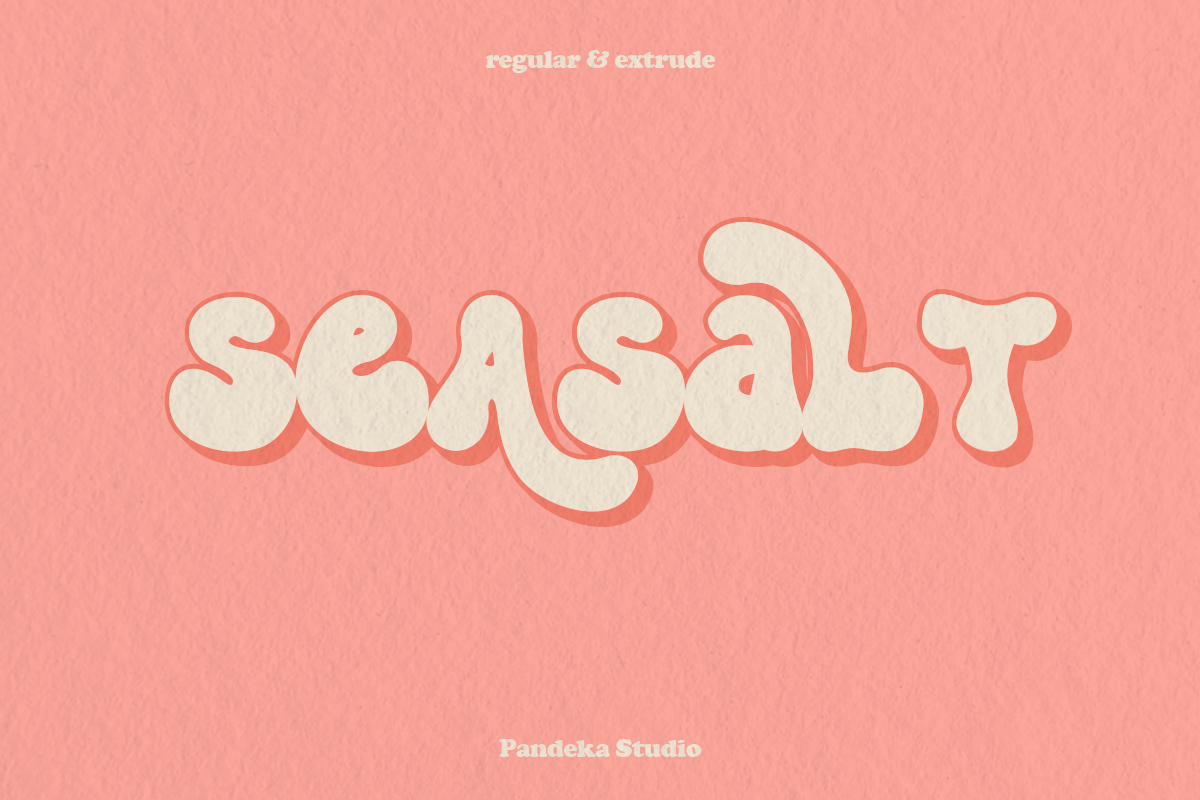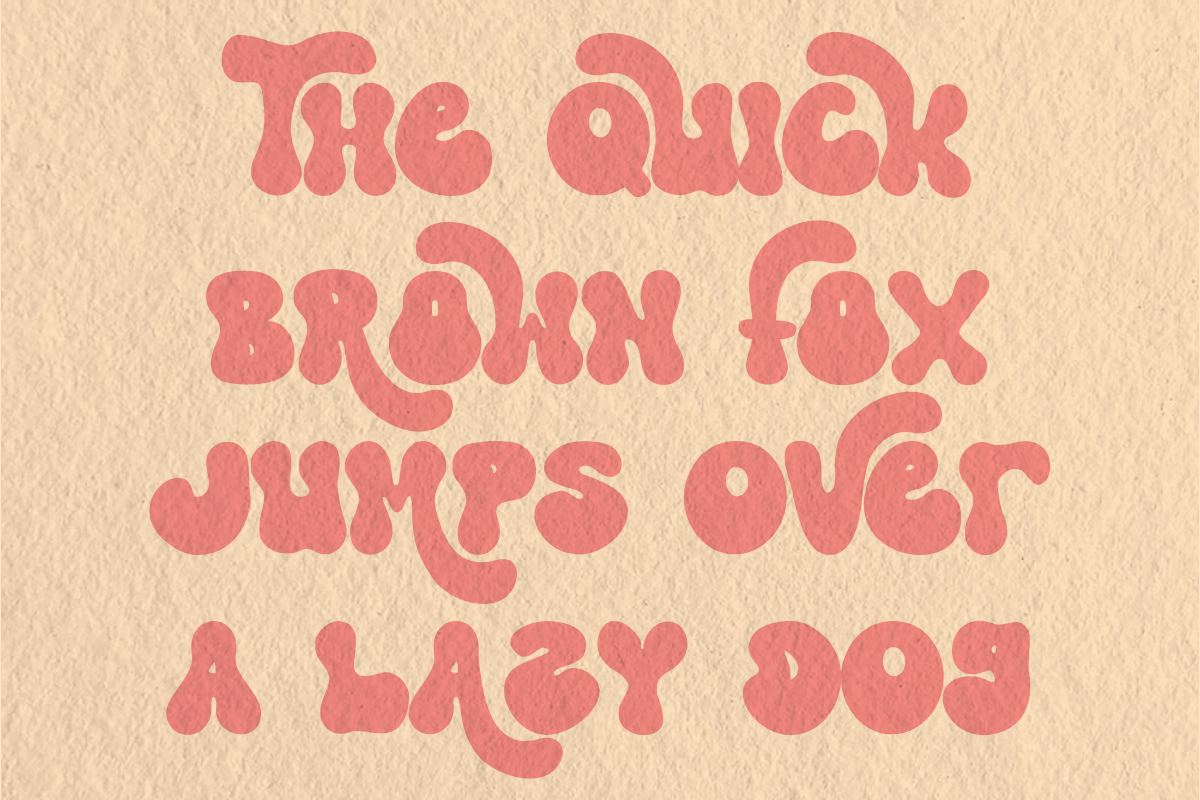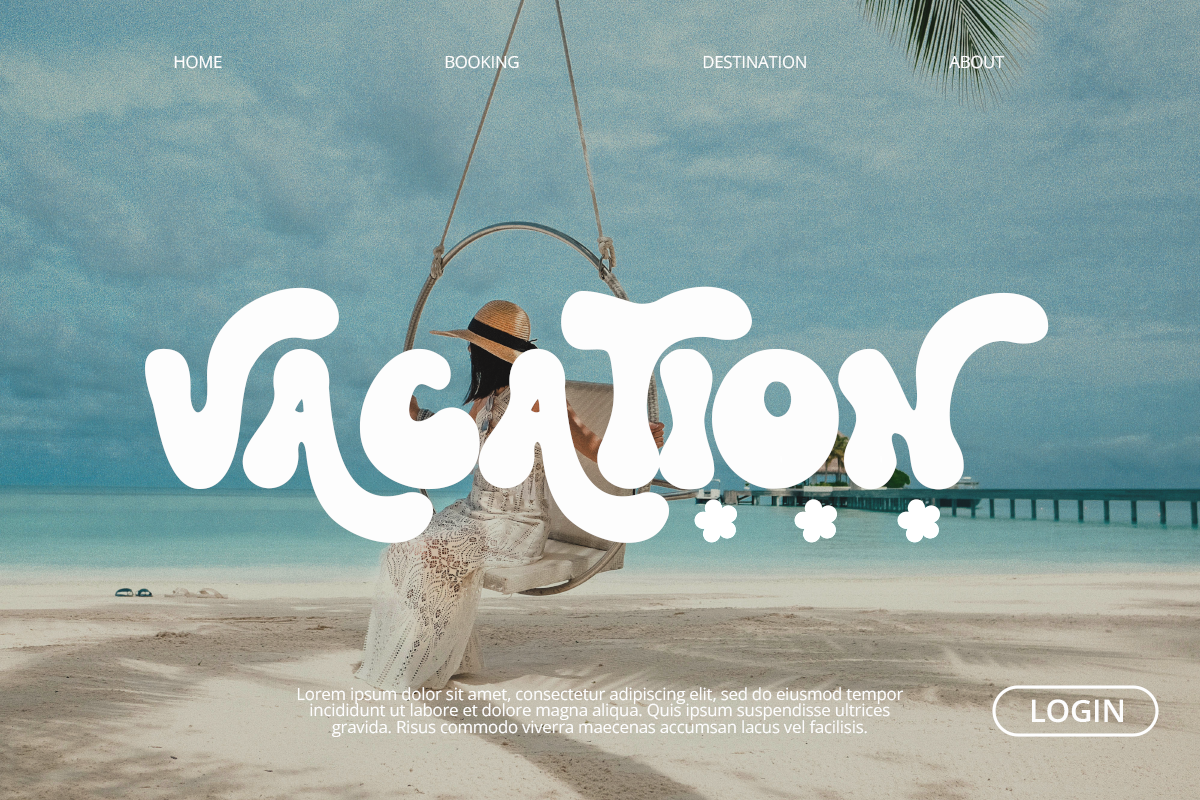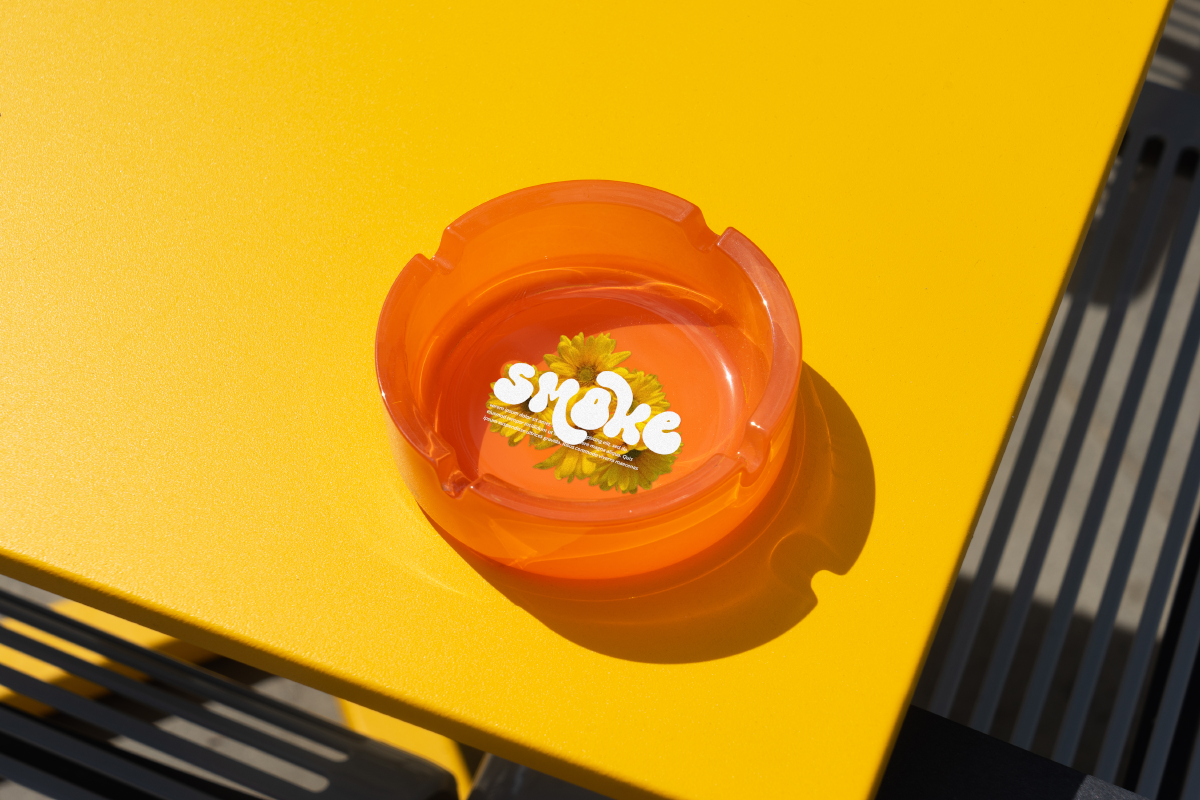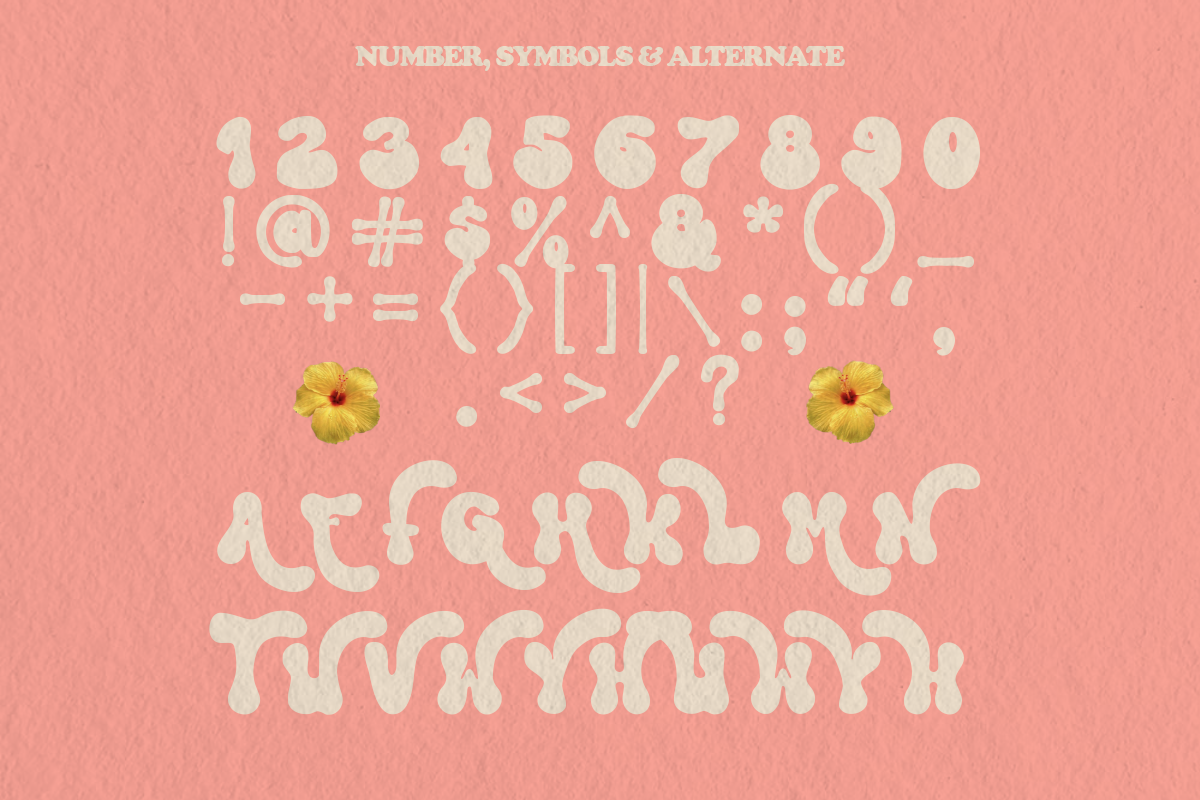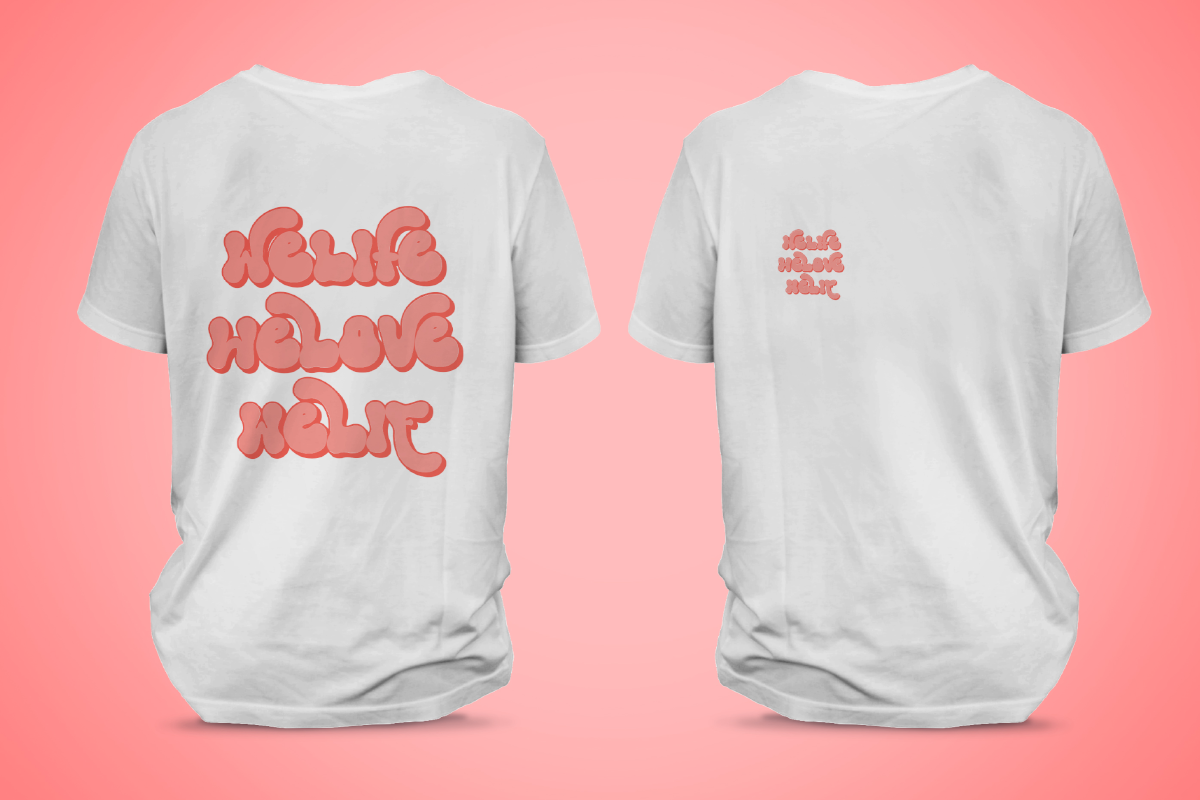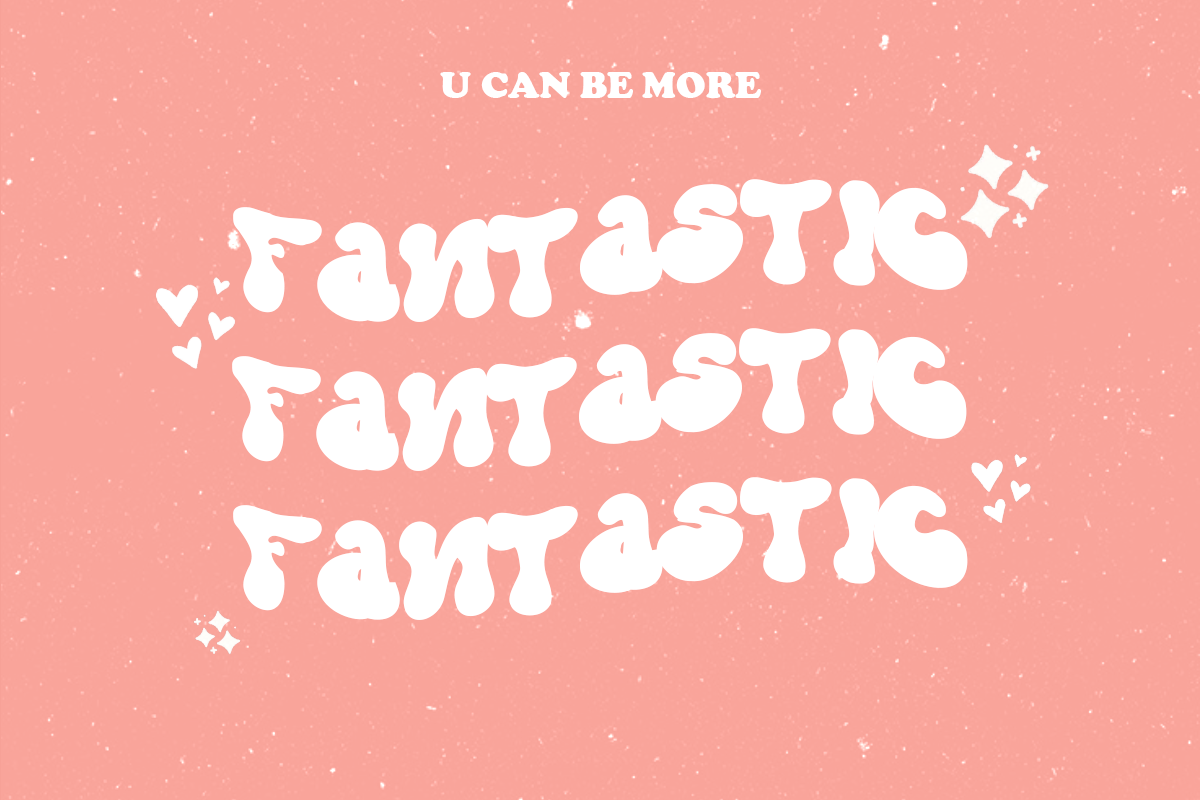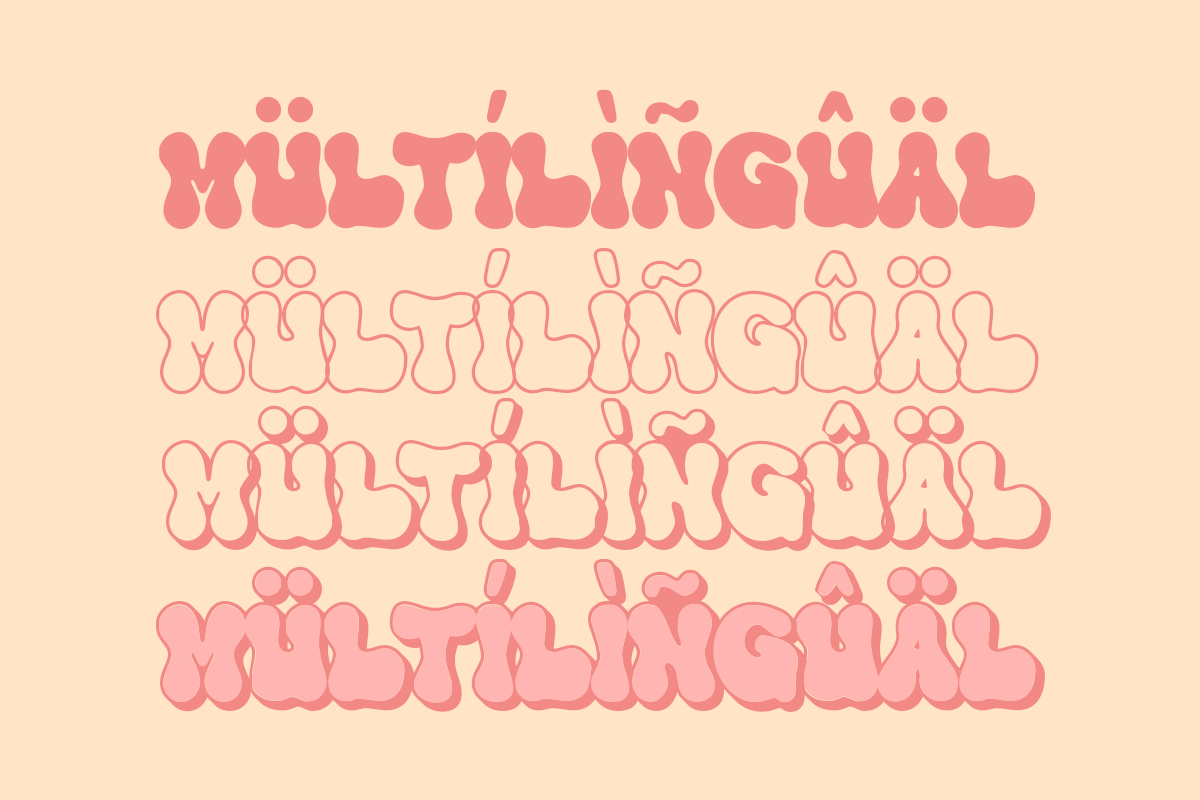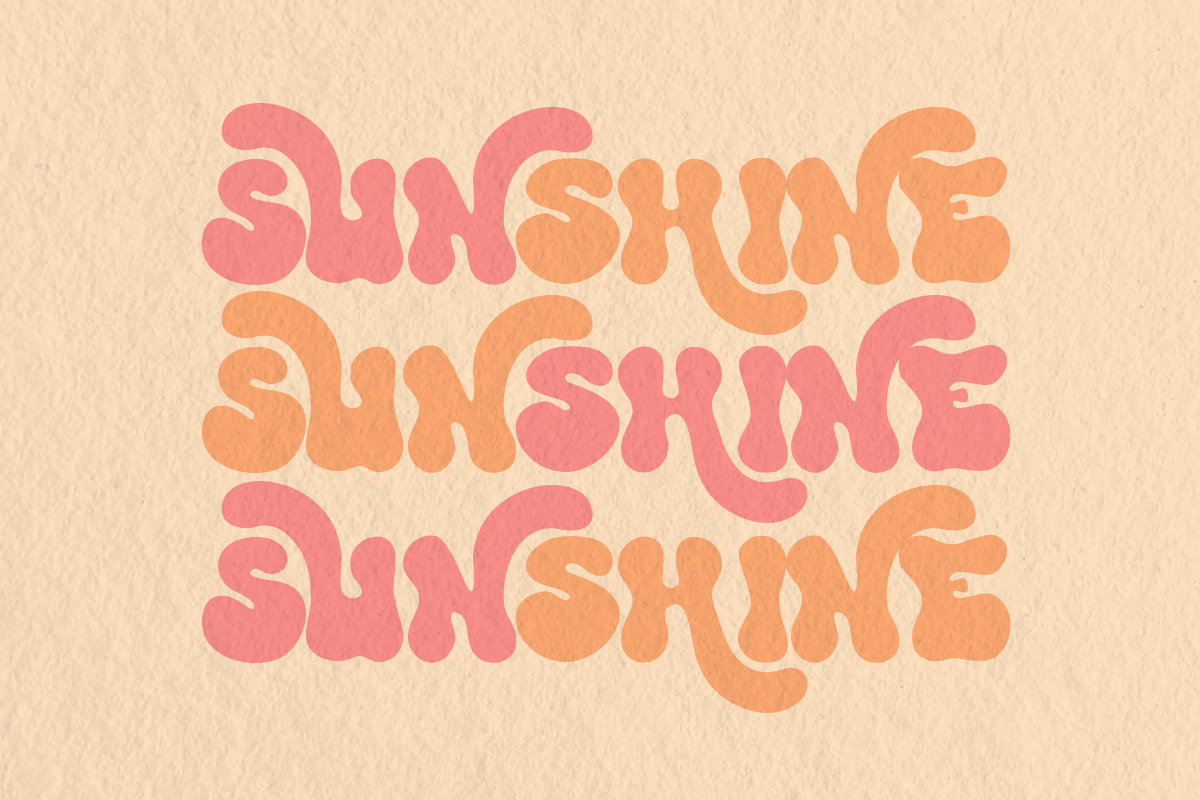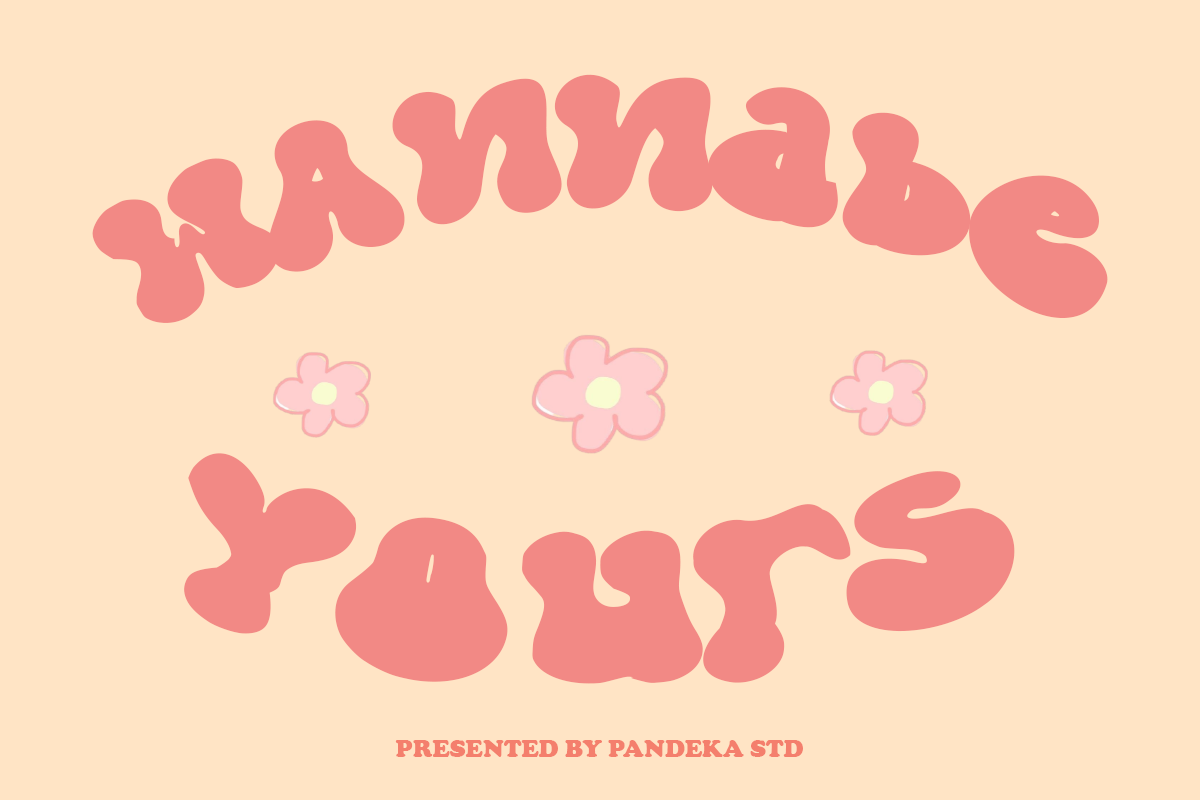
Super Wave - Retro Groovy Font
New Retro Font Style, Super Wave!
Super Wave font is a retro serif and bold display font. You will get three types of fonts in this pack, Regular, Outline and Shadow version. Use this display font to add that special retro touch to any design idea you can think of! With a delightful array of ligatures and alternate characters, this font becomes a creative playground for your projects
- Has 3 Styles: Regular, Outline and Shadow